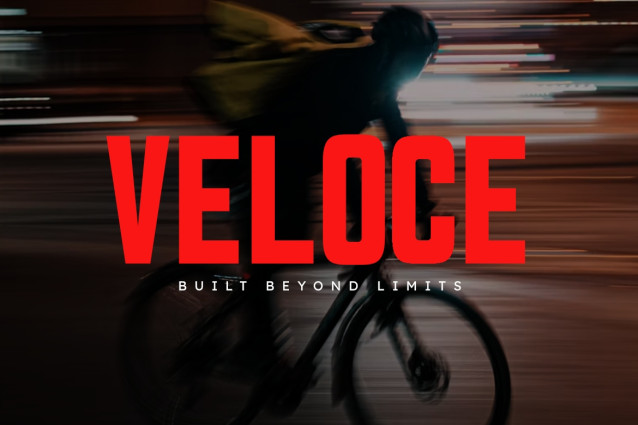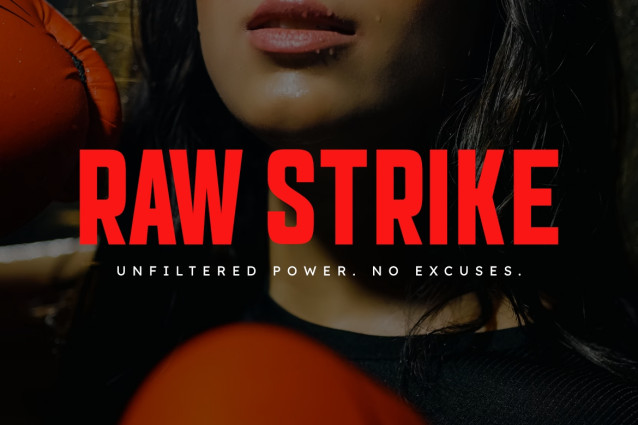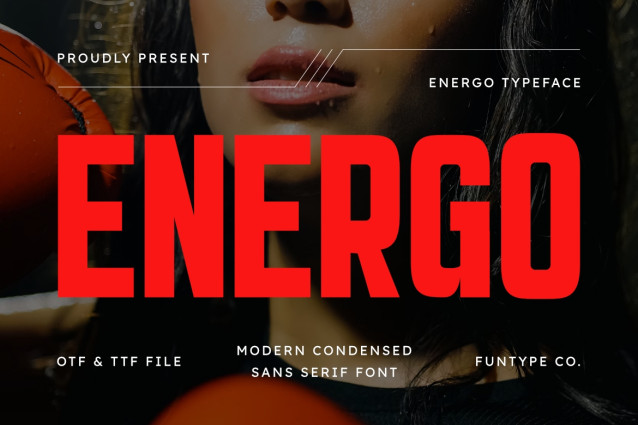
Energo – Modern Condensed Sans Serif Font
Energo is a high-impact, bold, and modern condensed sans serif font, engineered to bring a powerful athletic presence, tall space-saving geometry, and dynamic display aesthetic to contemporary design layouts. Featuring an elongated vertical profile, heavy block proportions, and sharp clean lines, Energo introduces a dynamic sports broadcast identity, combat sports promotion, high-energy editorial publishing, and prominent digital media presentation designed to claim absolute visual focus.
This font family is the ultimate choice for creative directors, athletic event organizers, and publication publishers looking to implement a robust typography identity for major text hierarchies. Whether you are developing bold corporate enterprise logotypes, championship boxing posters, energetic beverage packaging labels, cinematic action movie title sequences, outdoor campaign headers, or prominent digital web banners, Energo stands out with supreme legibility and commanding structural confidence.
- Modern Condensed Display Structure: Optimized with a narrow horizontal footprint and tall vertical proportions for heavy, high-impact title compositions.
- Dynamic Energetic Geometry: Solid block lines accented with sharp linear details crafted to secure instant audience attention.
- High-Energy Sports & Combat Aesthetic: Heavy vertical strokes balanced with clean, aggressive proportions, perfect for cutting-edge publications, gym/fitness media, and digital branding.